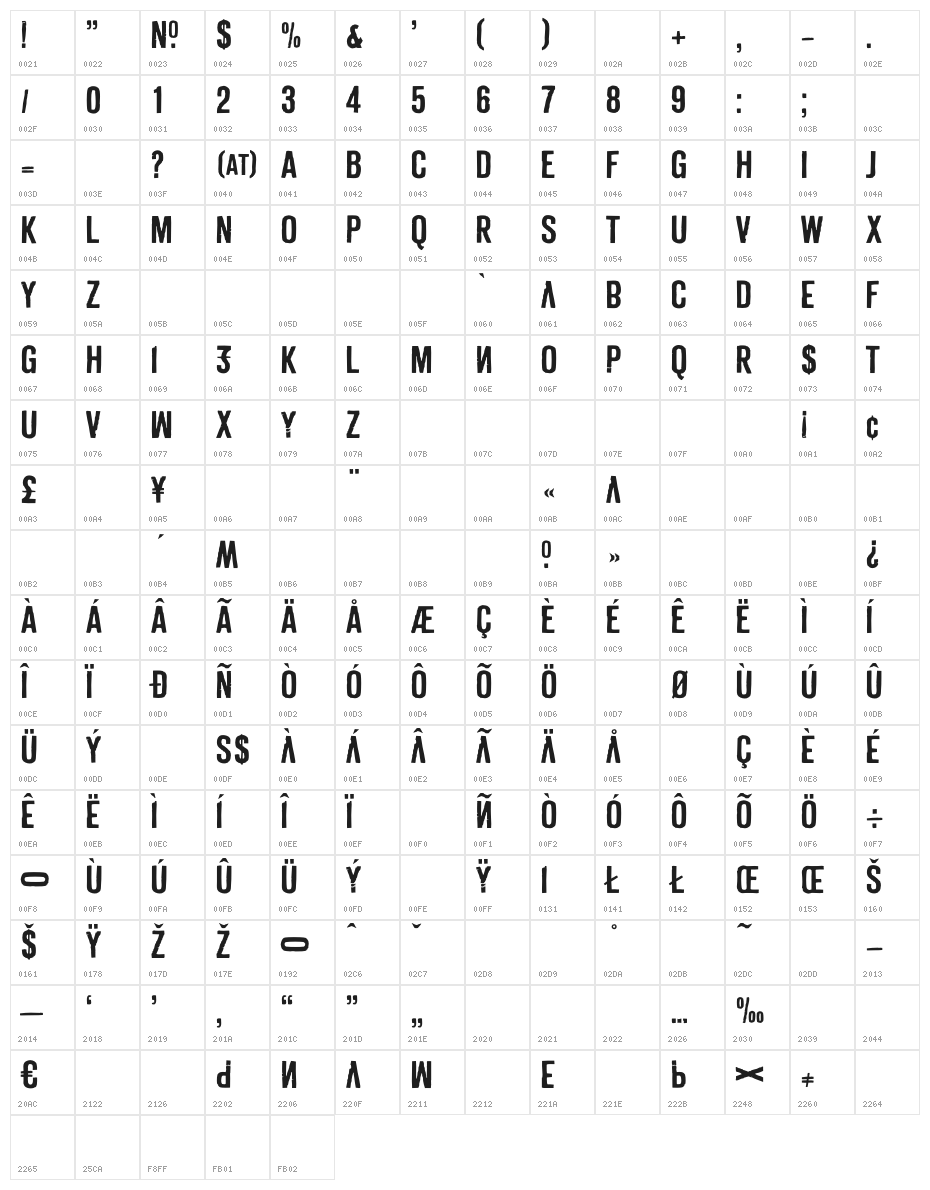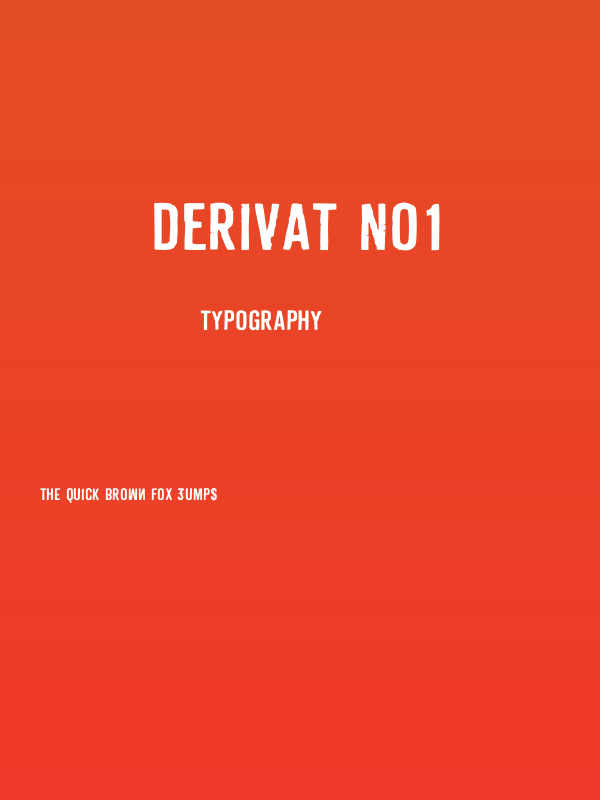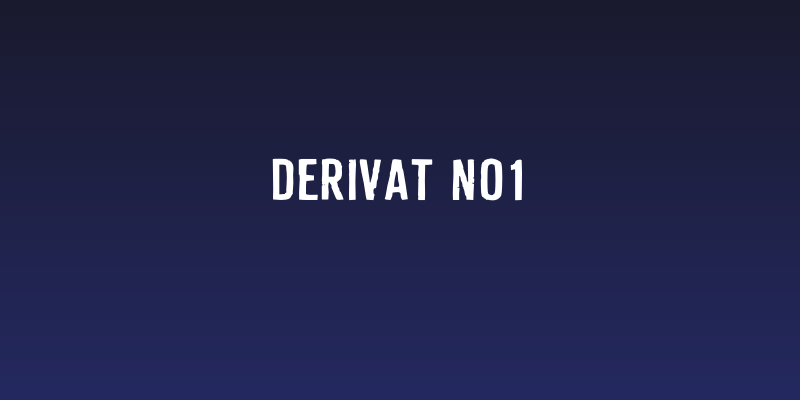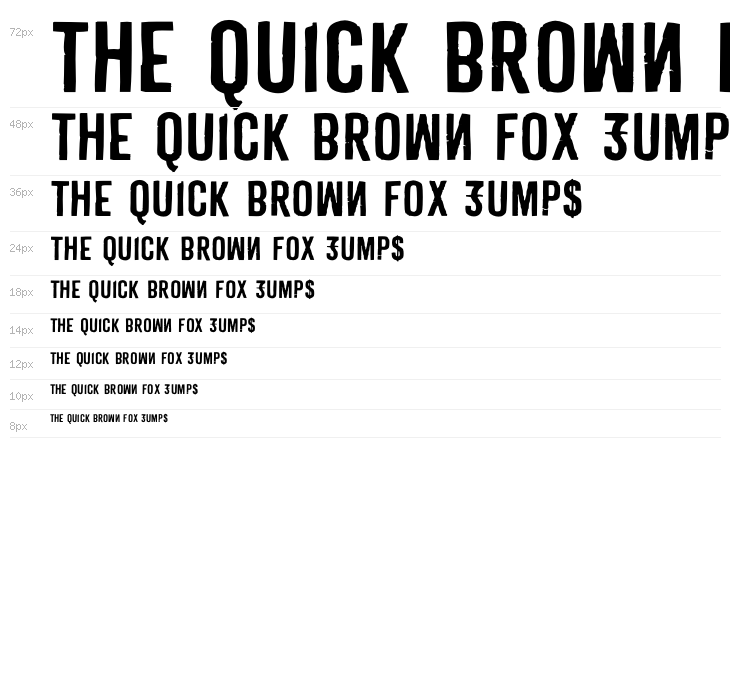
Derivat No1 Font
Derivat No1 Description
This font features a bold and rugged design with a distressed, grunge-like appearance. The characters are uppercase and exhibit a strong, impactful presence, making them ideal for attention-grabbing headlines. The letters have a slightly uneven texture, adding to the vintage and industrial feel. The numbers and special characters maintain the same boldness and distressed style, ensuring consistency across all glyphs. This font is perfect for projects that require a bold statement with a touch of edginess and character.
| Overall Style | Vintage, Industrial |
| Proposed Projects | Ideal for posters, album covers, branding, and any design needing a bold, gritty aesthetic. |